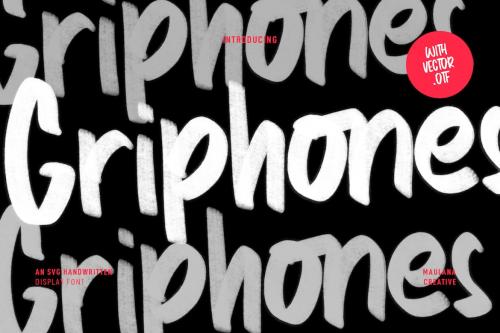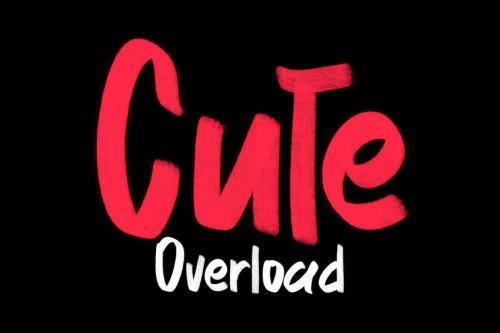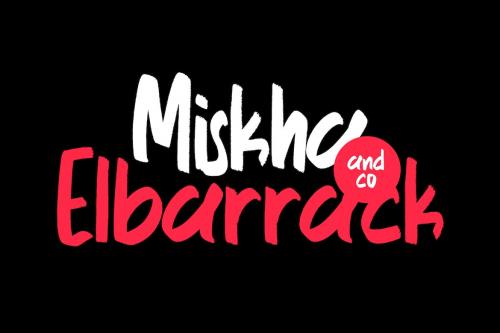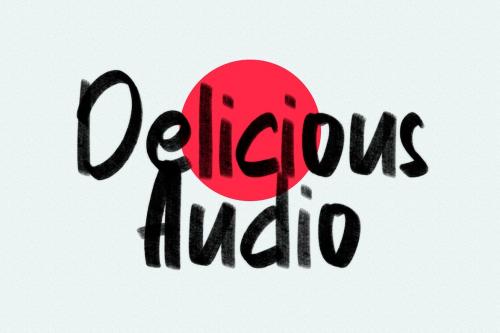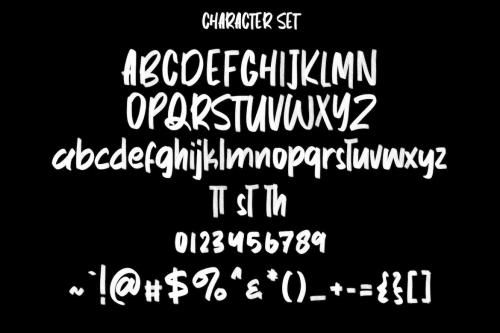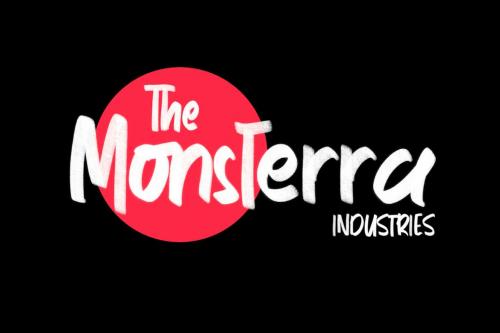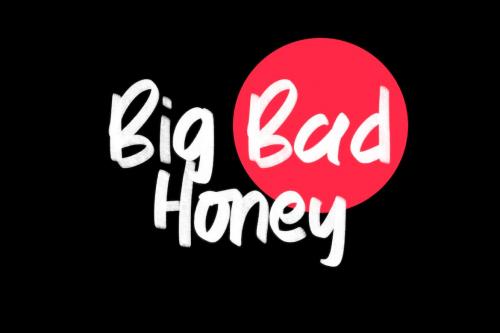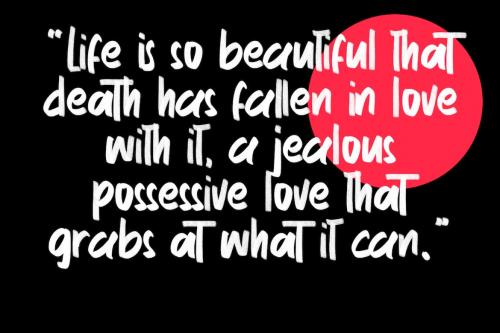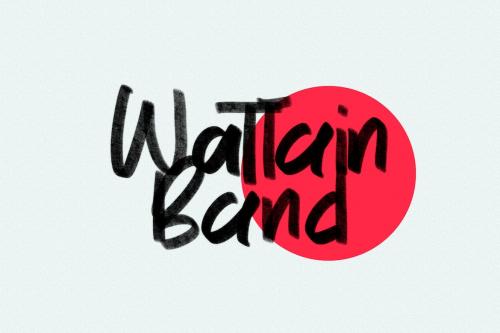
钢笔 SVG 手写体 font
Griphones SVG Handwritten Font
Griphones is a casual handwritten SVG font. With bitmap svg stroke, fun character with a bit of ligatures and alternates. To give you an extra creative work. Griphones font support multilingual more than 100+ language. This font is good for logo design, Social media, Movie Titles, Books Titles, a short text even a long text letter and good for your secondary text font with script or signature. Make a stunning work with Griphones font.